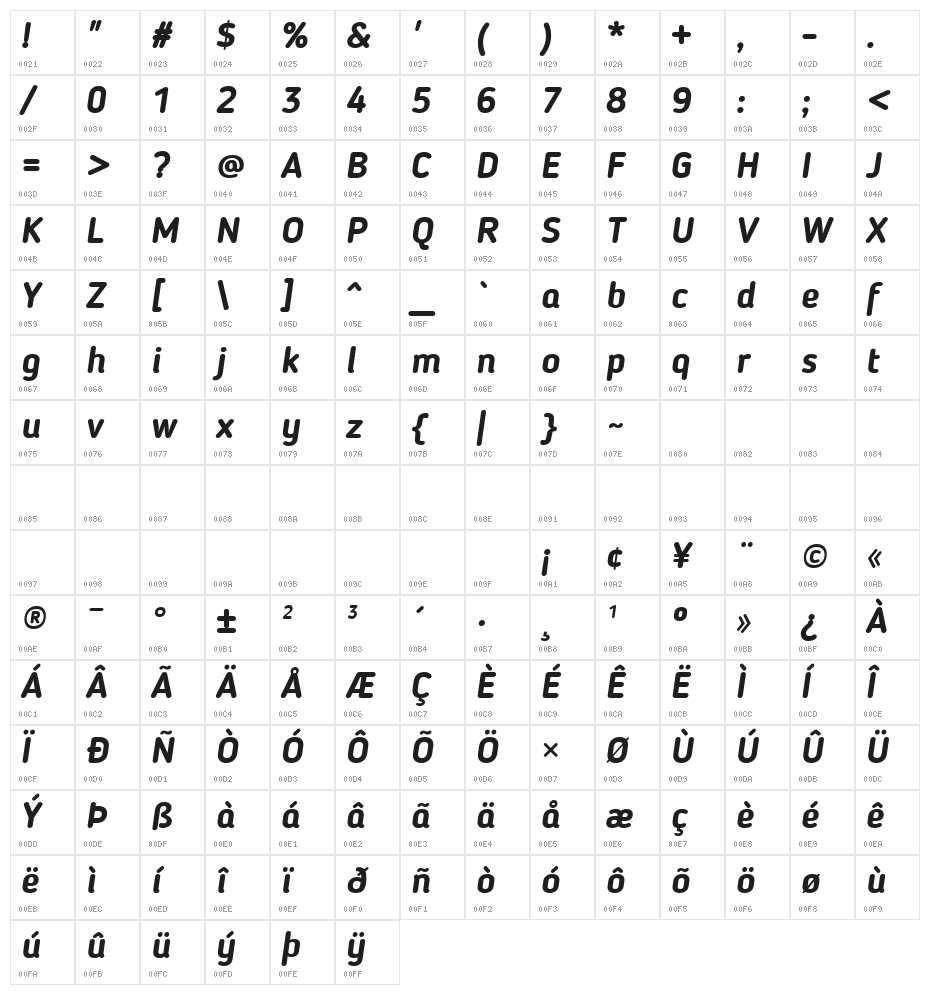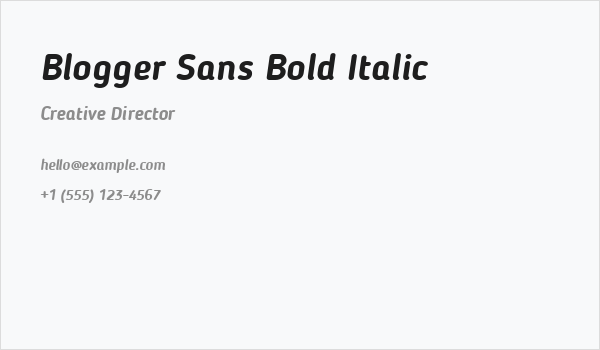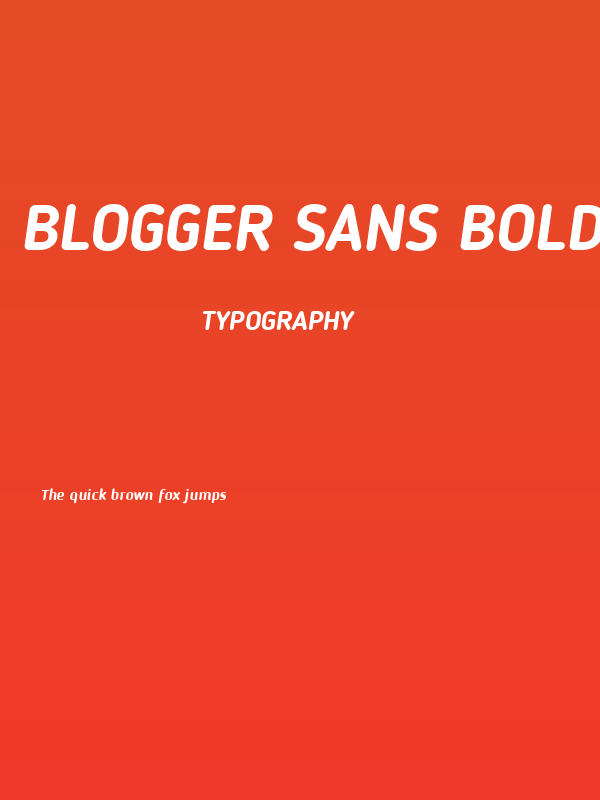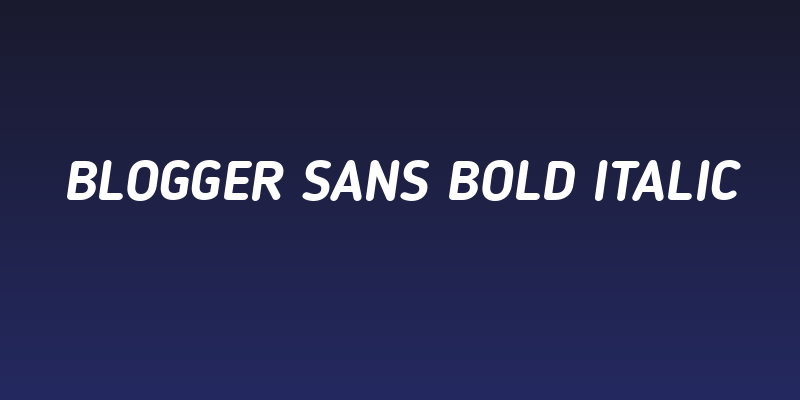
Blogger Sans Bold Italic Font
Blogger Sans Bold Italic Description
This font features a bold and italic style, characterized by smooth, rounded edges and a modern sans-serif design. The letters are slightly slanted, giving a dynamic and forward-moving appearance. The uppercase and lowercase letters maintain a consistent style, with uniform stroke widths that enhance readability. The numerals are clear and distinct, matching the overall aesthetic of the alphabet. Special characters are well-integrated, maintaining the same bold and italicized style. This font is versatile, suitable for both digital and print media, and works well in various sizes due to its clear and legible design.
| Use Case | Headlines, Logos, Digital content |
| Proposed Projects | Ideal for branding, advertising, headlines, and digital content where a modern and dynamic appearance is desired. |